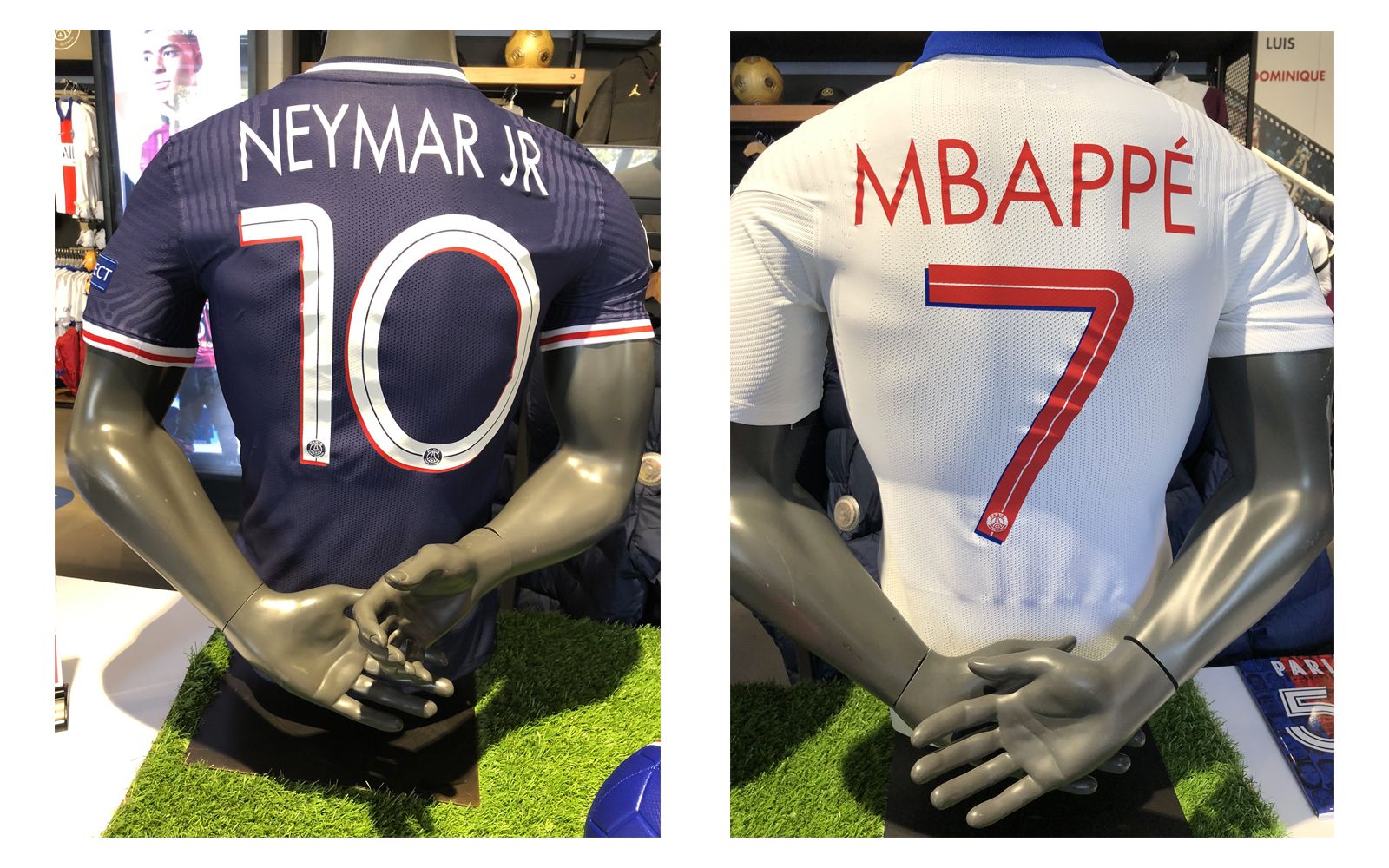
The PSG font for the 20-21 Champions League It will make his debut tonight in the match against Manchester United
Just a few hours before the kick-off of the 2020-21 Champions League, just 58 days after the final played between Bayern Munich and Paris Saint-Germain in Portugal. First day and immediately great matches: Juventus starts its march from Ukraine, challenging Lucescu's Dynamo Kiev; Lazio will debut in the evening against Borussia Dortmund, while the mach highlight of the day is staged at the Parc des Princes in Paris. PSG-Manchester United is the first great intersection of this Champions League, particular for a thousand reasons. Neymar & Co. will take the field with a new font, free from the new Ligue 1 rule.
The shirt was spotted in one of the PSG stores in Paris and it is exactly what the eleven who will take the field for the French debut in Europe will wear. A very simple font as regards the letters, while slightly more complex as regards the jersey numbers. Unlike the font used by the Parisians in the league, this one dedicated to the Champions matches in a more harmonious way the geometric characteristics of the new Nike and Jordan kits.